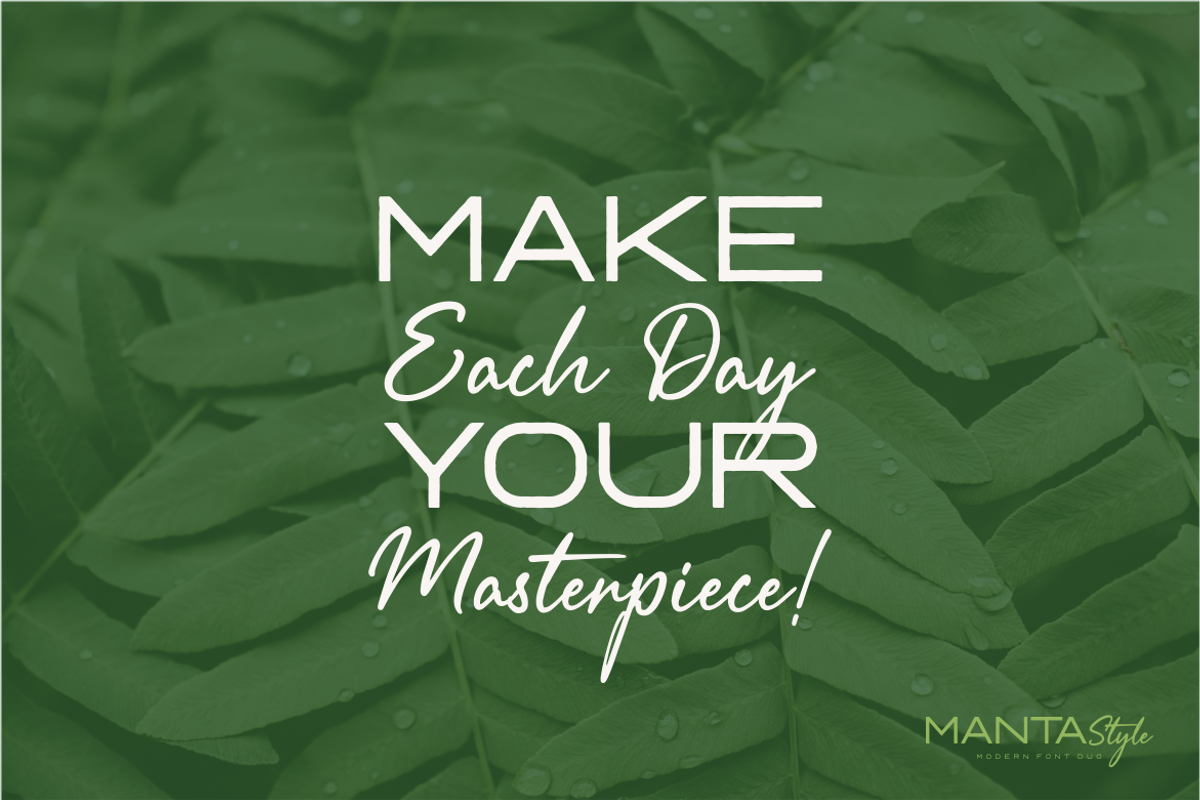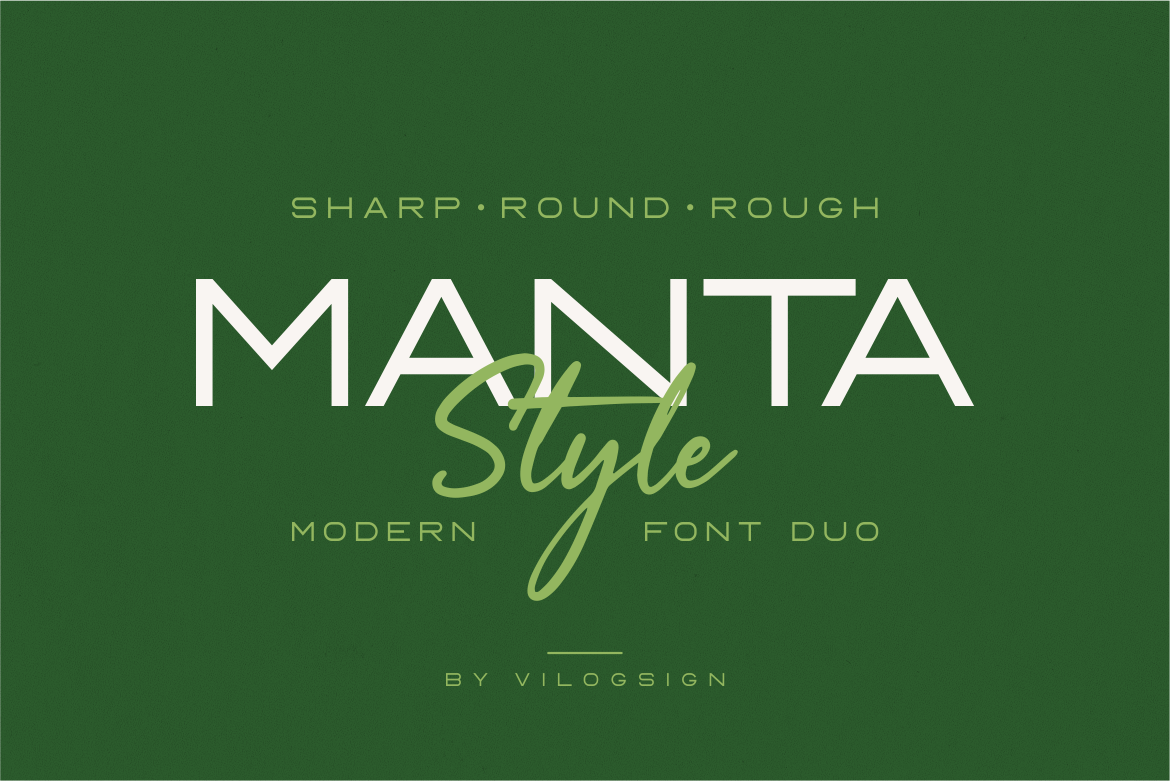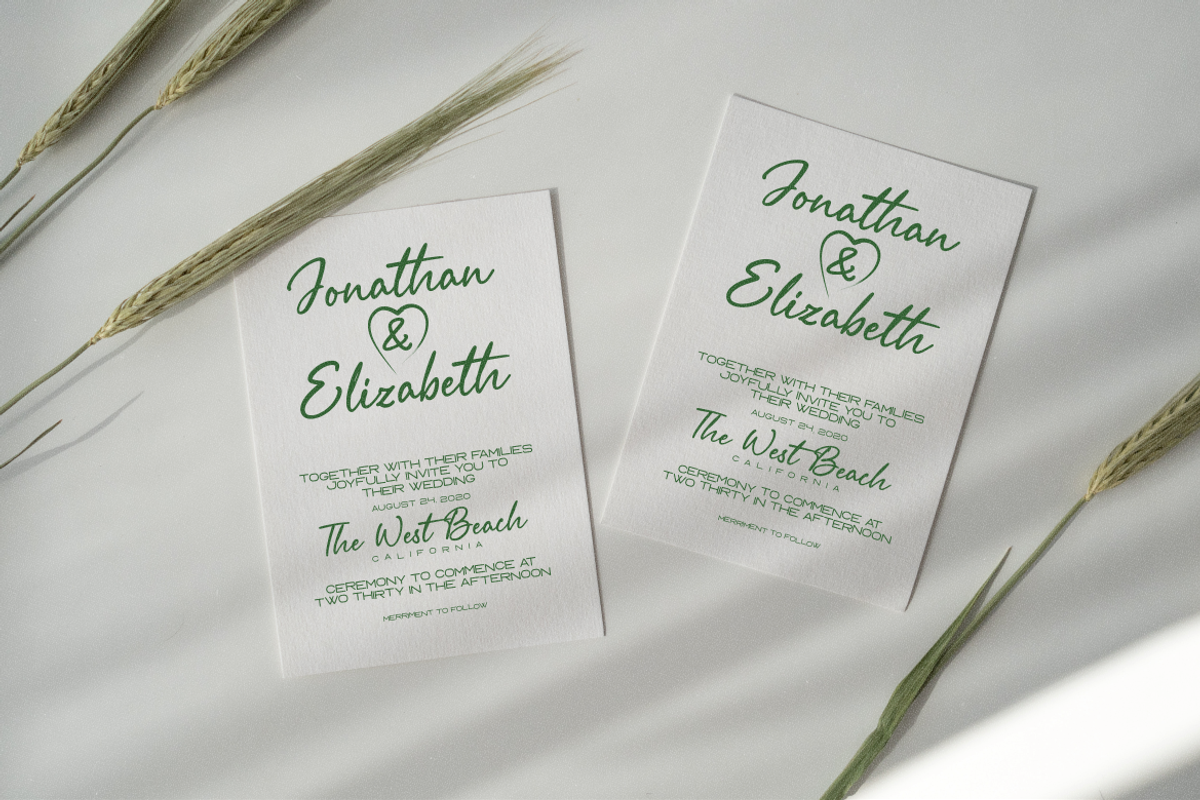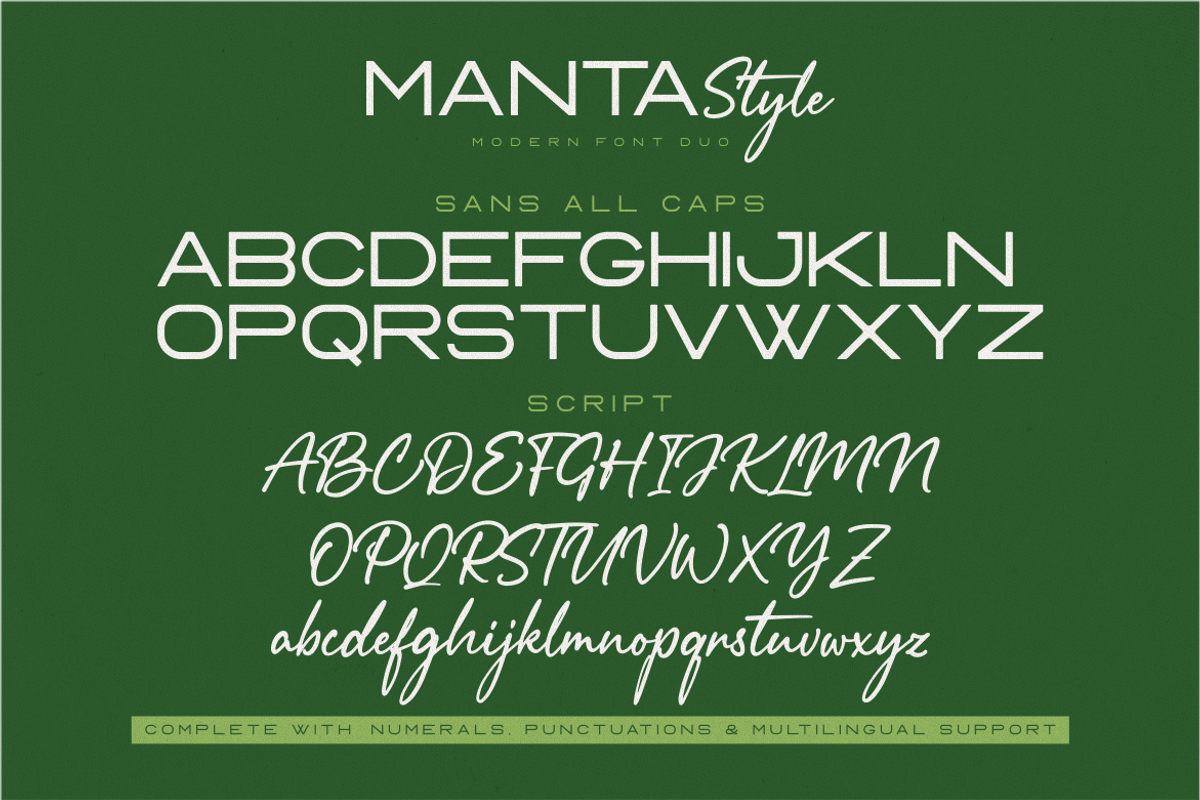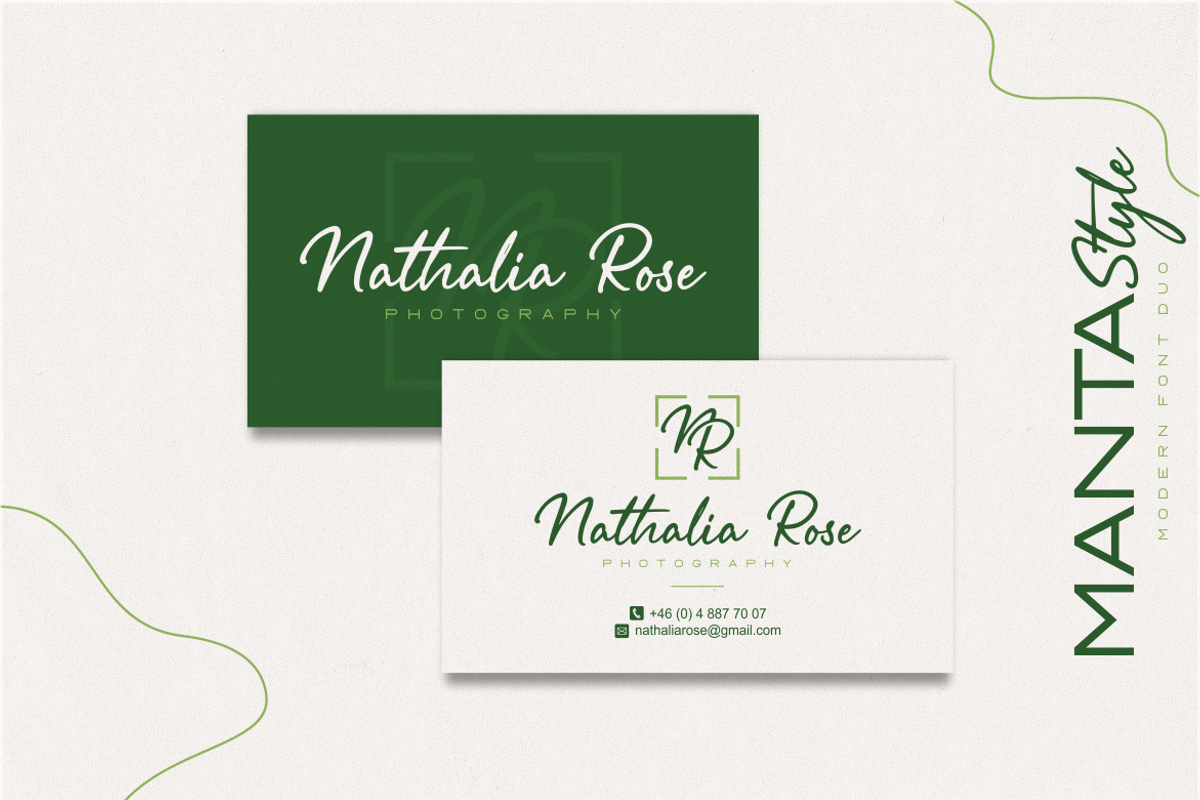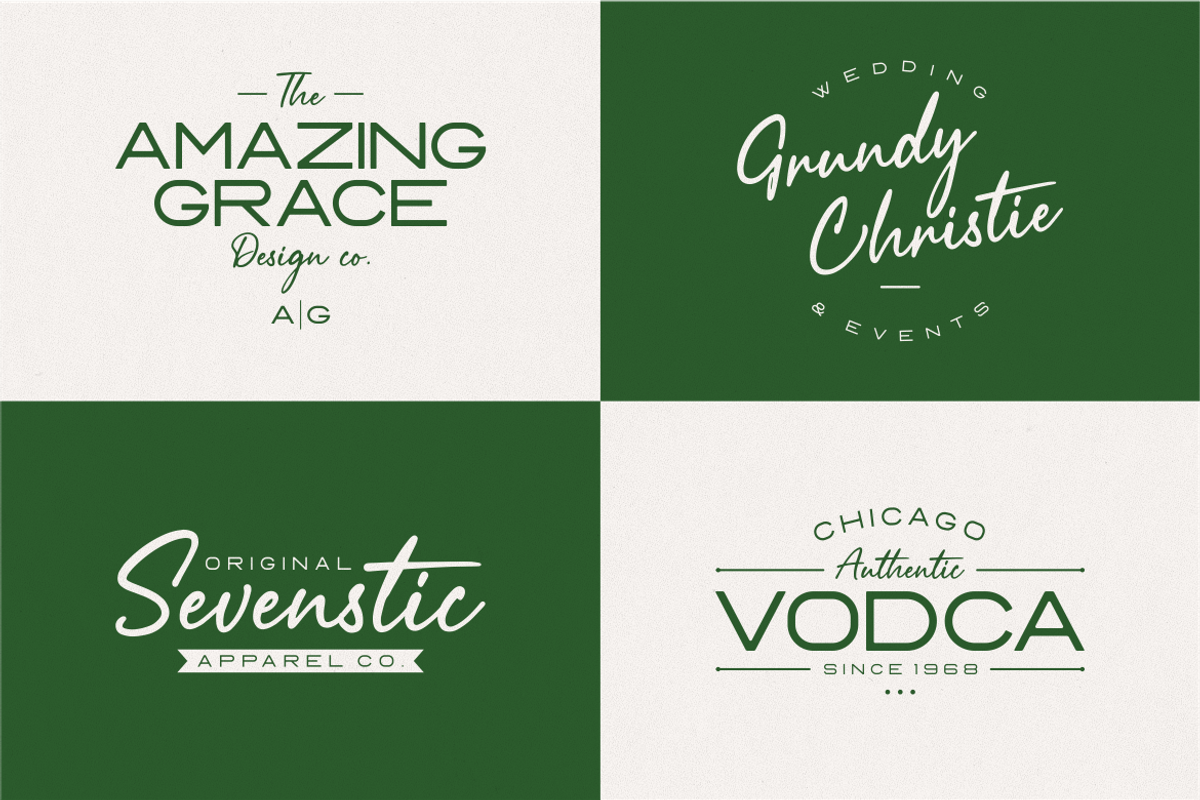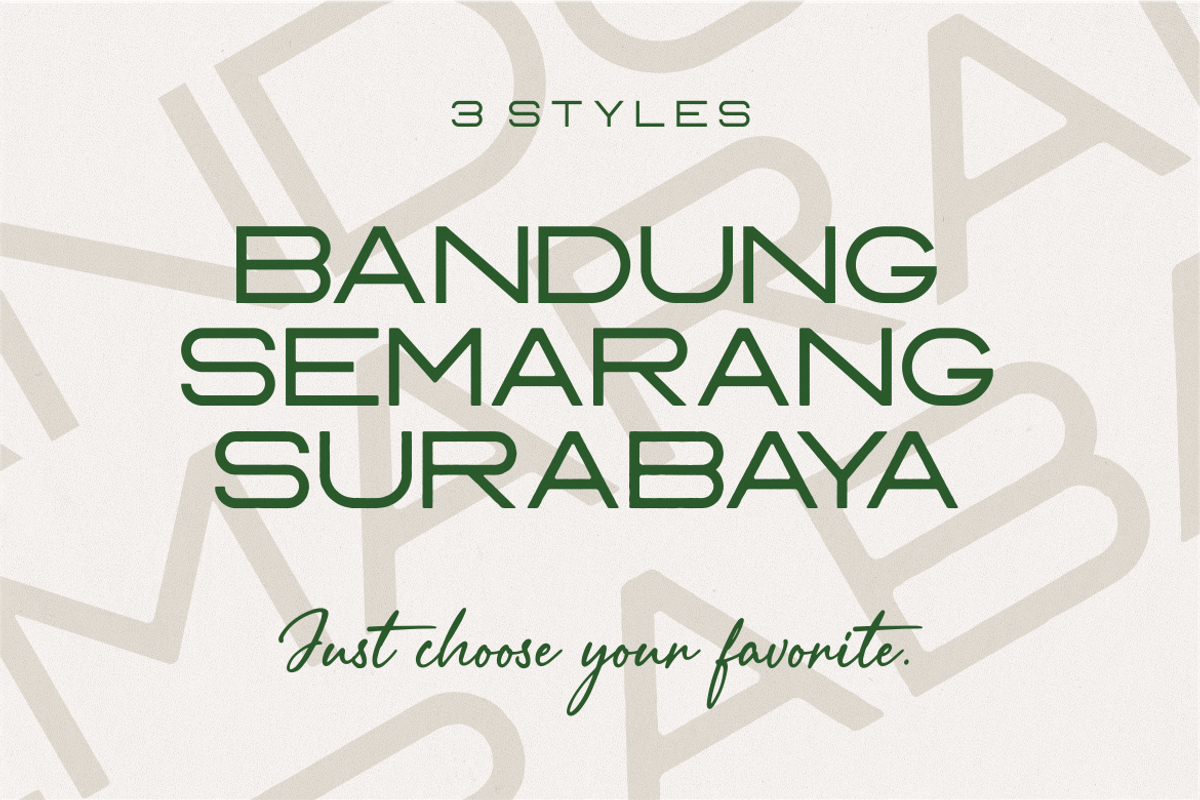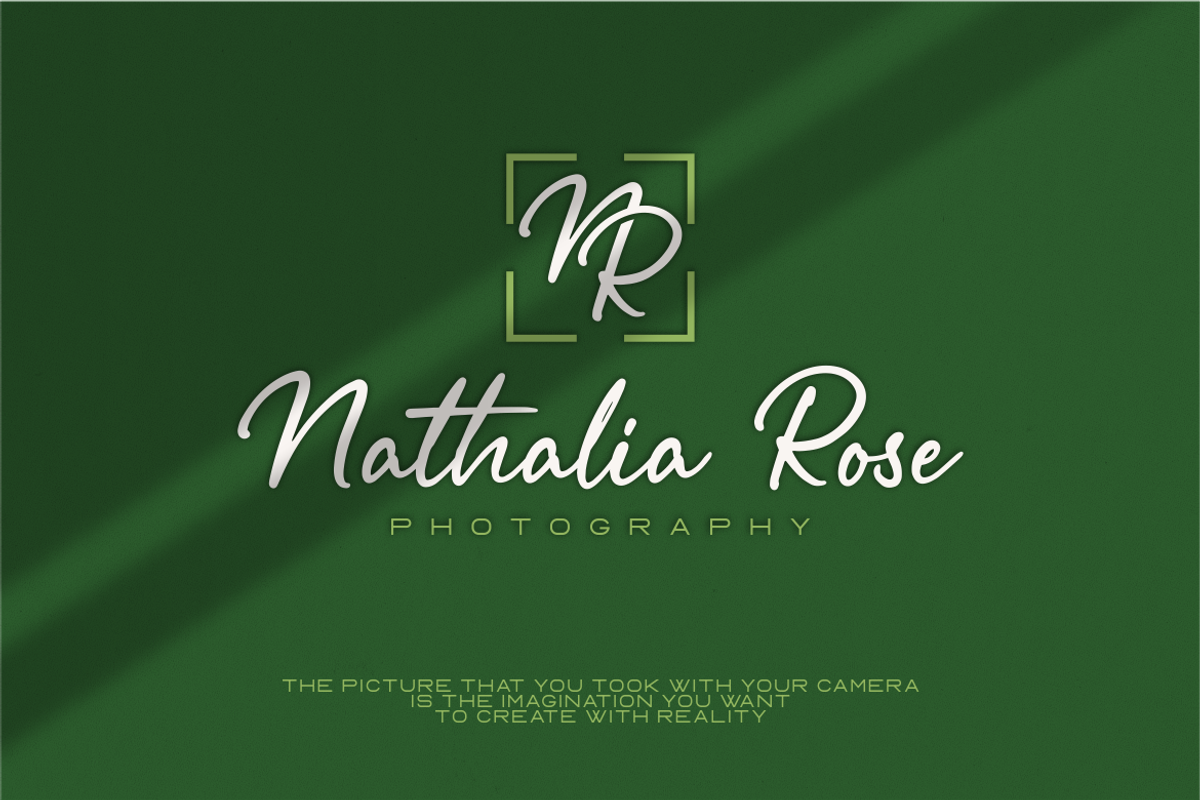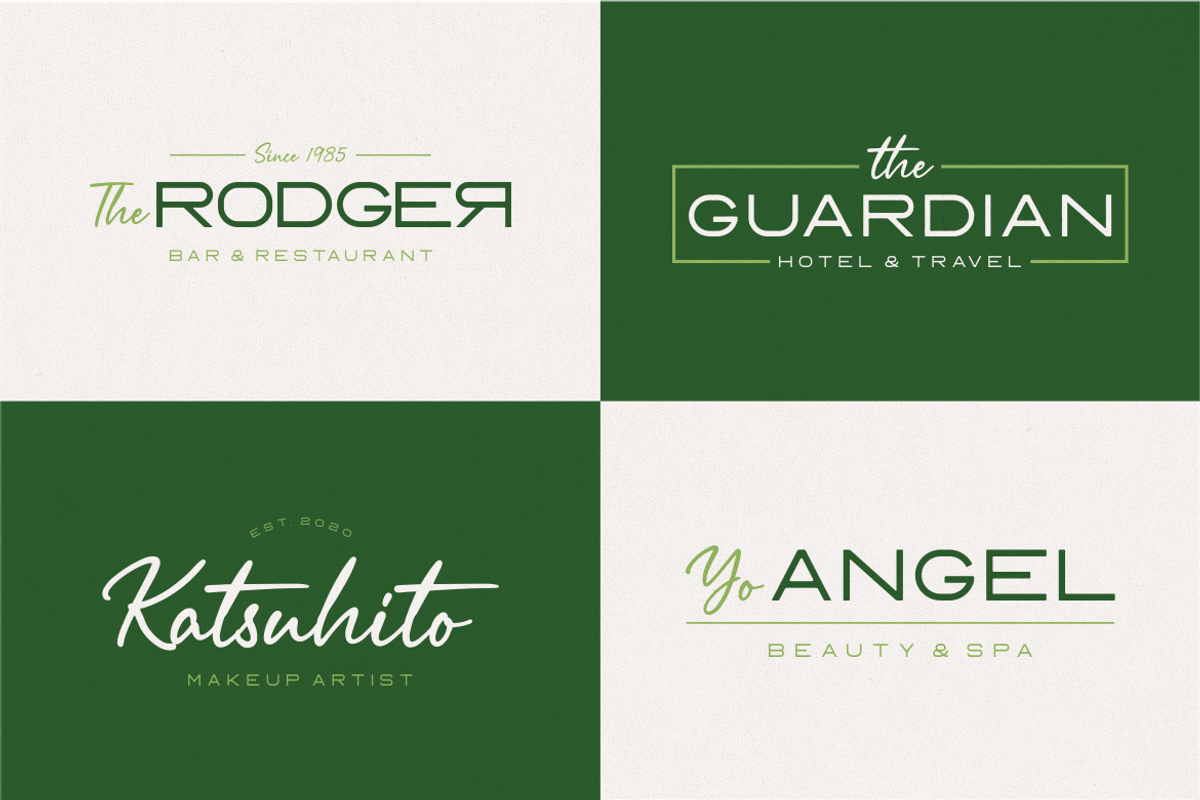
Manta Style Modern Font Duo
Hi,,, Introducing "Manta Style" a Font Duo!!!
With 3 varitions (Sharp, Round, Rough), Just choose your favorite. Made with very serious and all caps to make this font so perfect for your need. This font is very good with multilingual support to complete your need. With an modern feel so make this font look strong, classic, Modern and vintage, very suitable to make a branding, t-shirt, magazine, fashion, quotes, logo, packaging, and other.